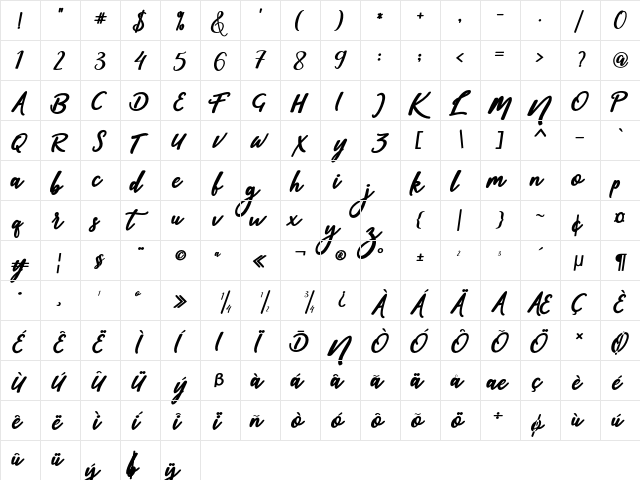
sophia script Font Preview
sophia script
sophia script Font Details
| Style | script |
| Foundry | mrletters_muhammad rizal |
| Designer | mrletters_muhammad rizal |
Design Context for sophia Typeface
sophia flows with the natural rhythm of handwritten lettering, making it ideal for designs that call for warmth and personal expression.
Font Pairing: Combine sophia with a simple geometric sans for maximum contrast — the tension between flowing curves and clean structure is a classic typographic pairing.
Pro Tip: Pair sophia with a clean sans-serif for supporting text. The contrast between fluid script and geometric structure creates an elegant typographic hierarchy.